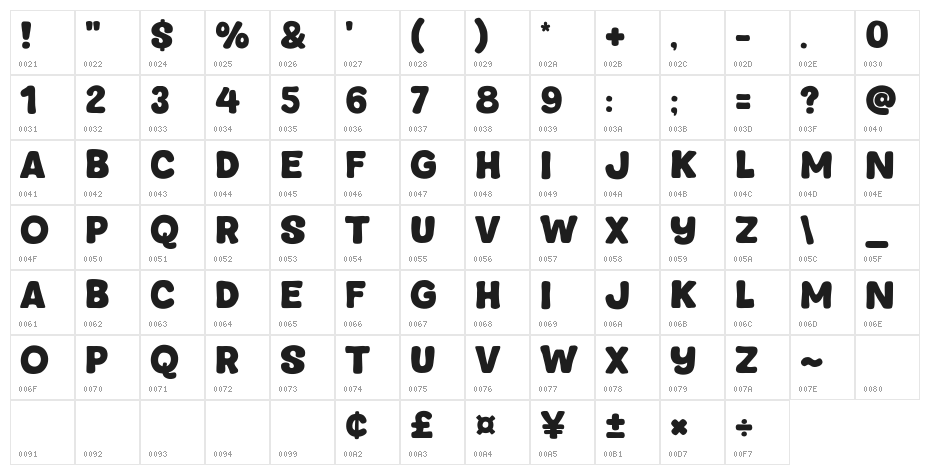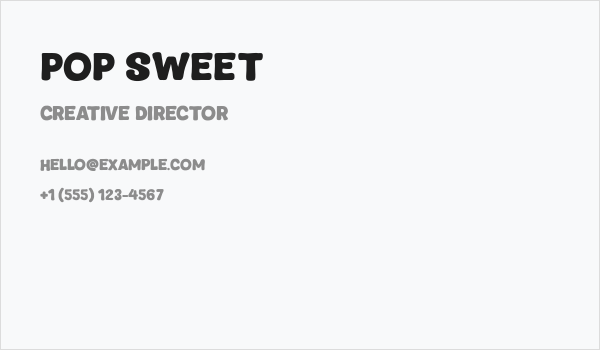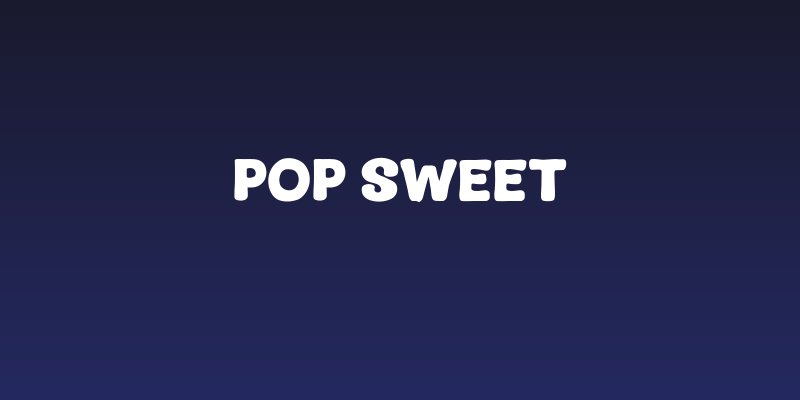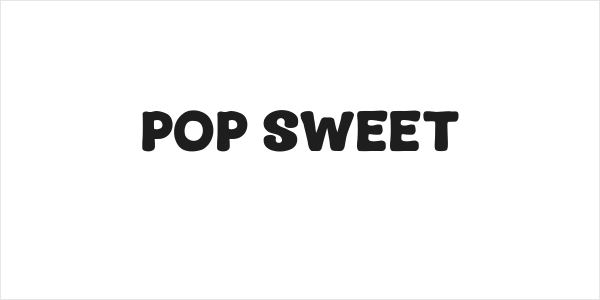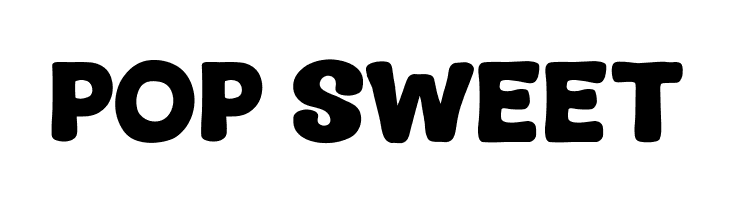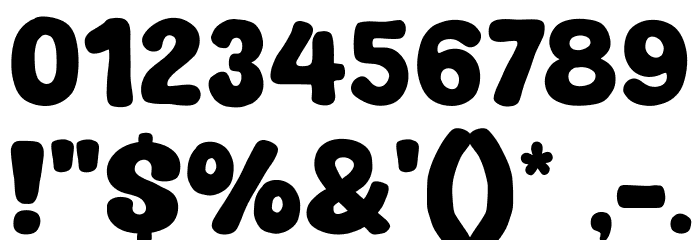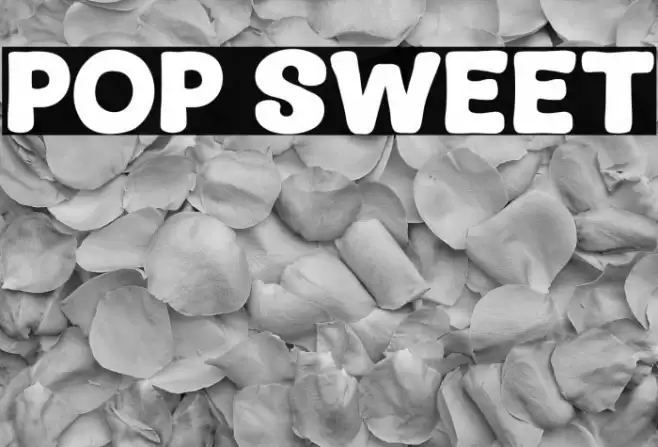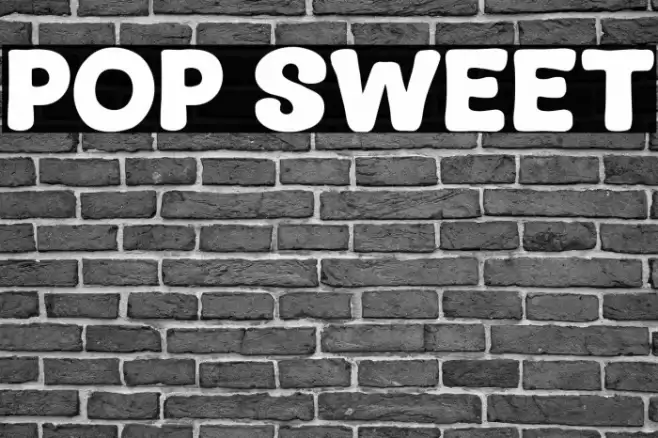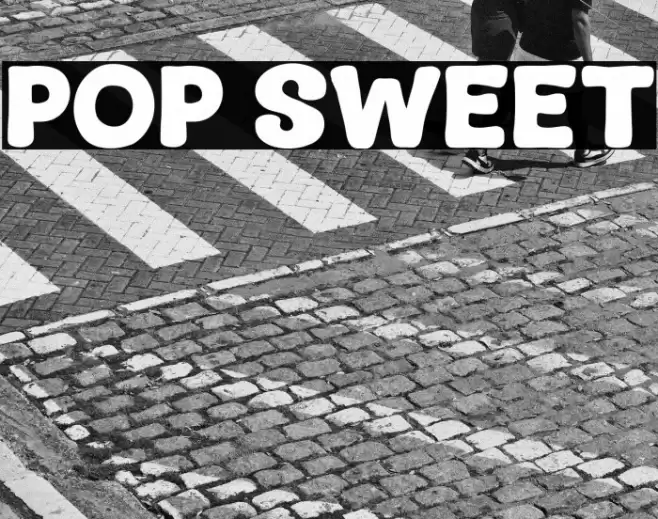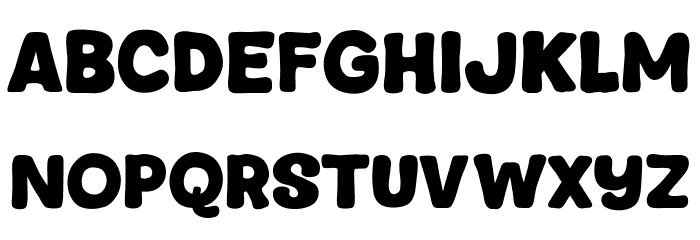
Pop Sweet Font
| Proiecte propuse | Ideal for children's books, playful branding, party invitations, and any project needing a fun, approachable vibe. |